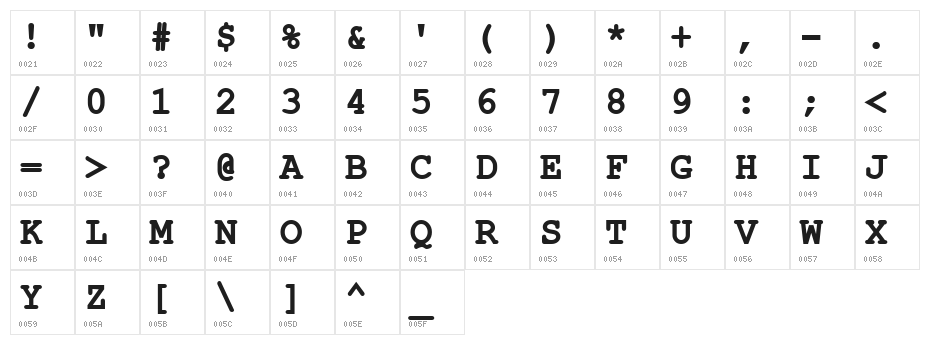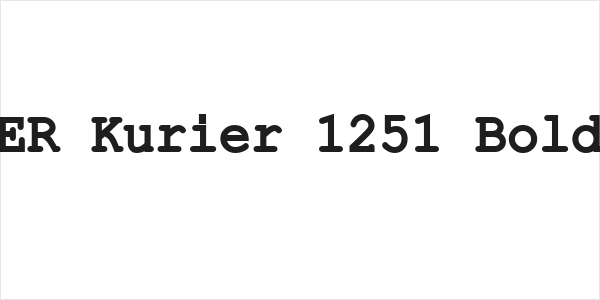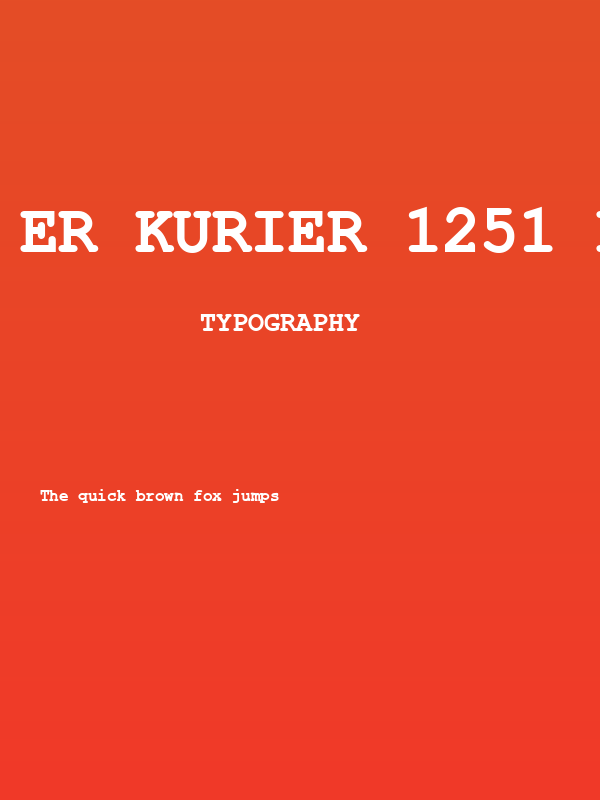
ER Kurier 1251 Bold Font
ER Kurier 1251 Bold Description
This typeface is characterized by its bold, slab serif style, offering a robust and impactful appearance. The letters are uniformly thick, providing a strong presence on the page. The serifs are pronounced and block-like, contributing to a sense of stability and authority. The uppercase and lowercase letters maintain a consistent weight, enhancing readability. Numbers and special characters are designed with the same boldness, ensuring uniformity across all text elements. The font's design is reminiscent of typewriter fonts, giving it a classic yet modern appeal. Its boldness makes it suitable for headlines and titles, where emphasis is needed.
| Proposed Projects | Ideal for headlines, posters, branding, and any project requiring a bold, authoritative typeface. |